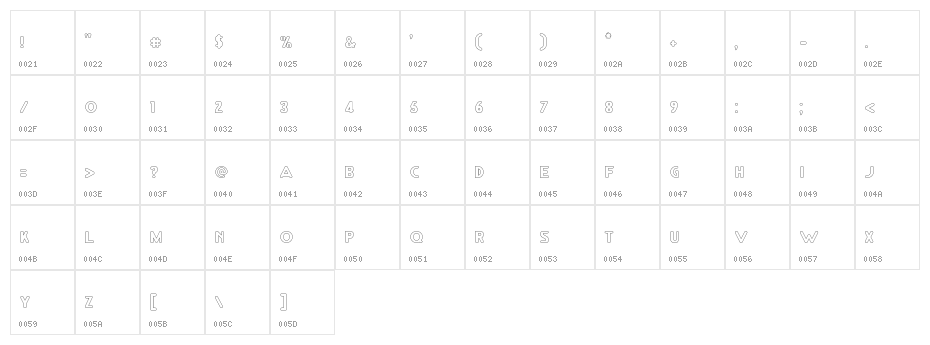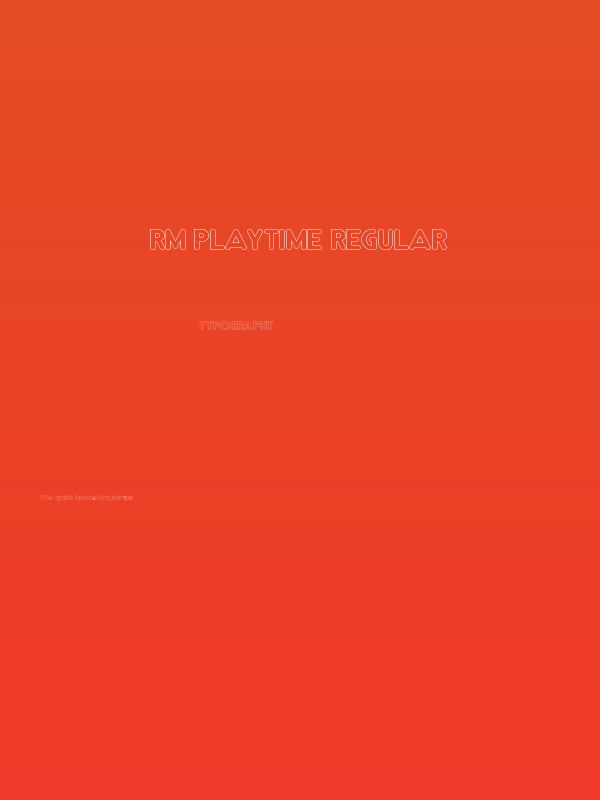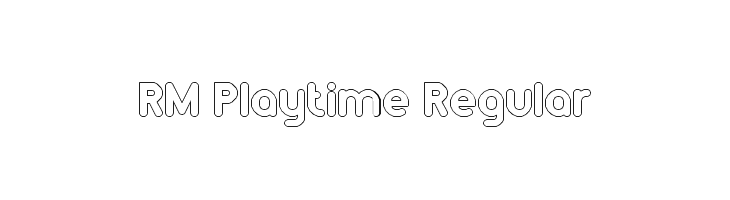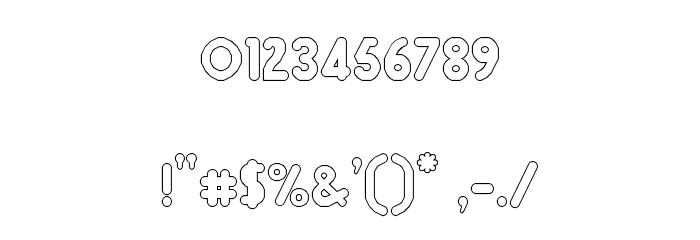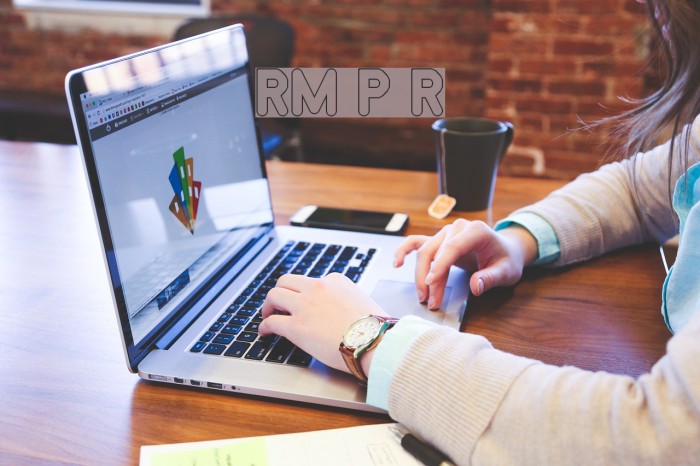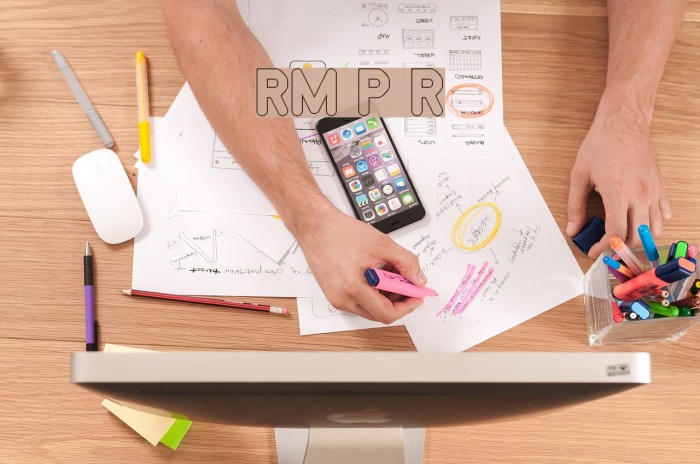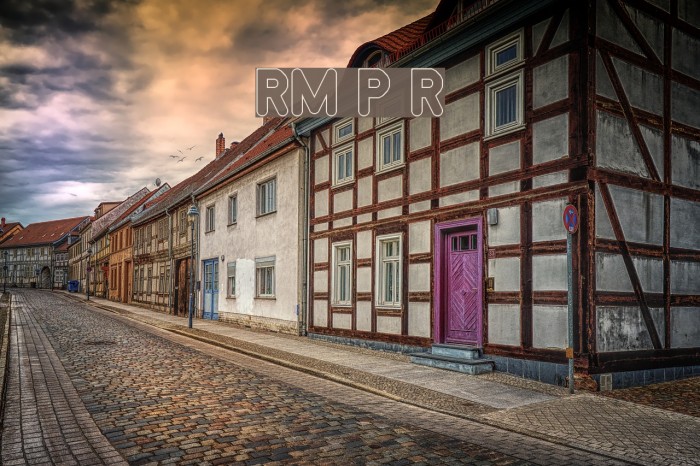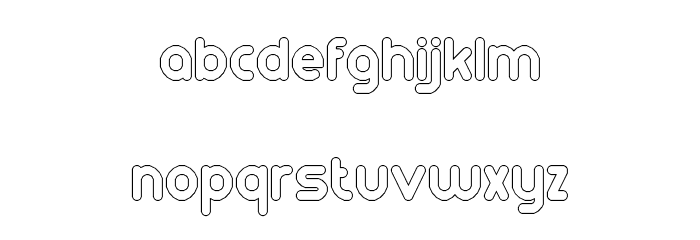
RM Playtime Regular Font
RM Playtime Regular Description
This playful and whimsical font features a hollow, outlined design that gives it a light and airy feel. The characters are rounded and smooth, with consistent thickness throughout, creating a friendly and approachable appearance. The uppercase and lowercase letters maintain a uniform style, while the numerals and special characters complement the overall design. Its unique outline style makes it stand out, perfect for projects that require a fun and engaging look.